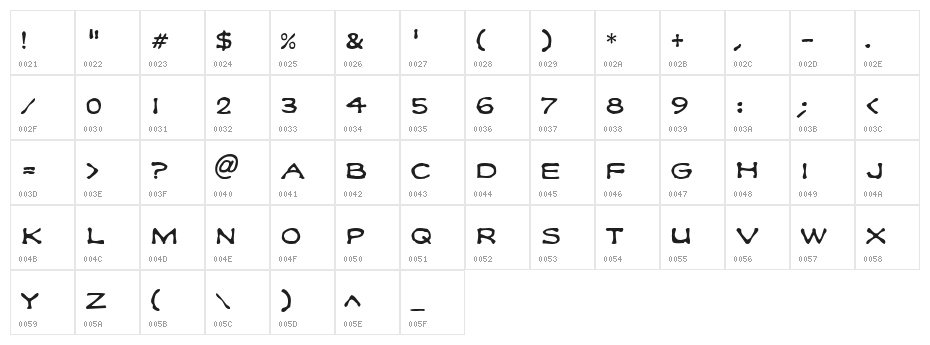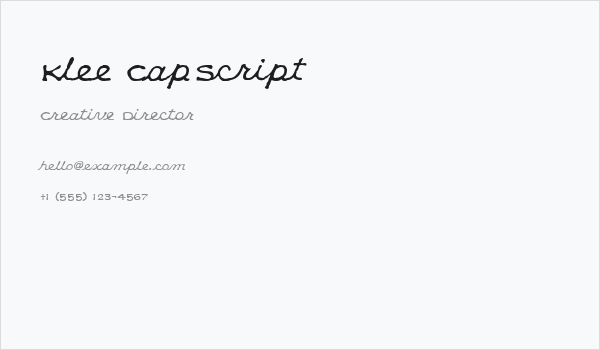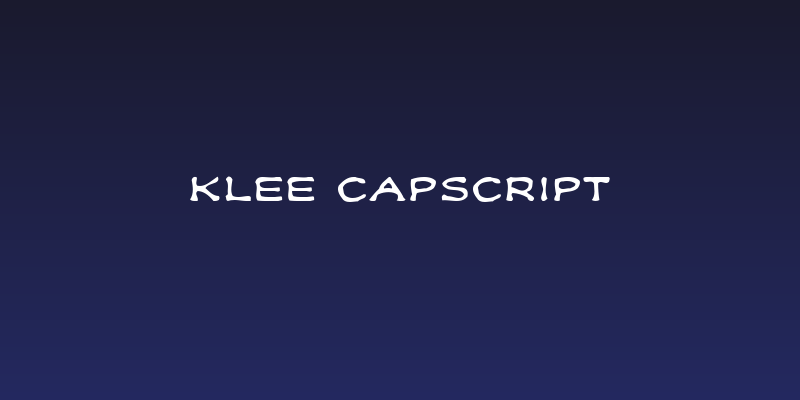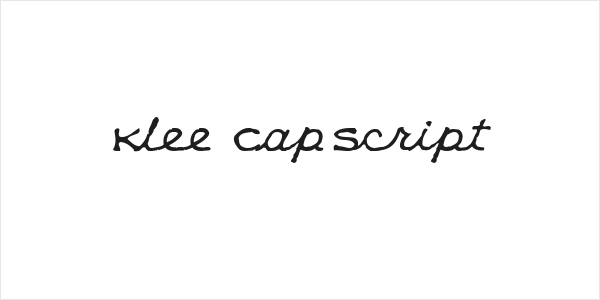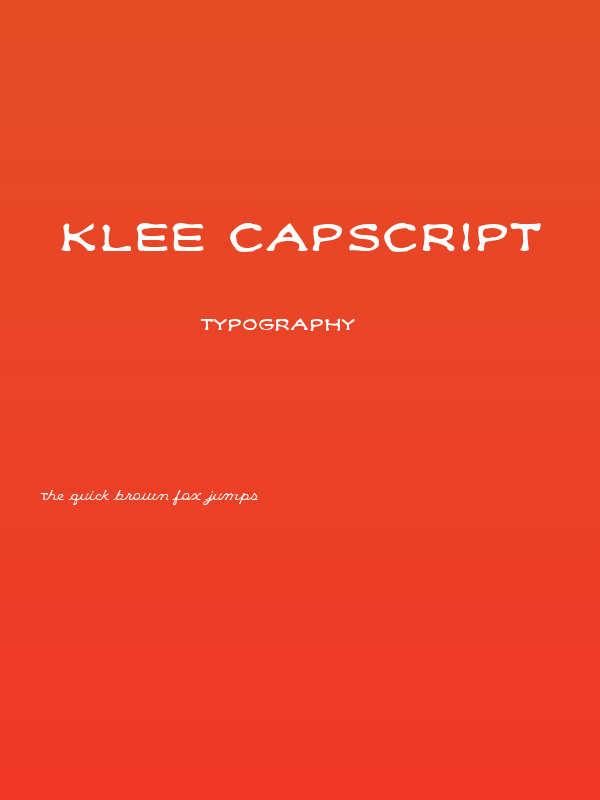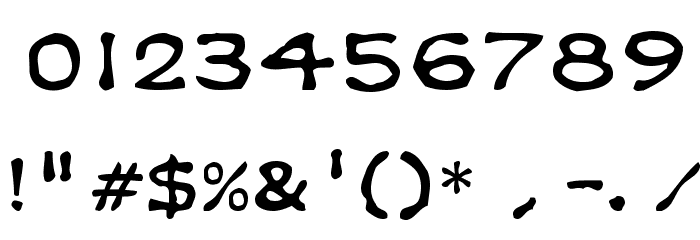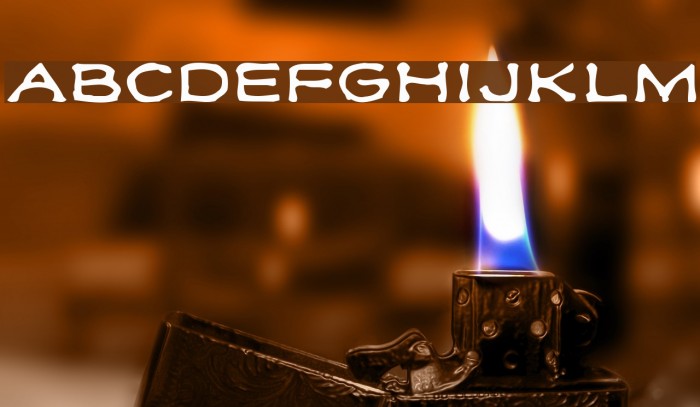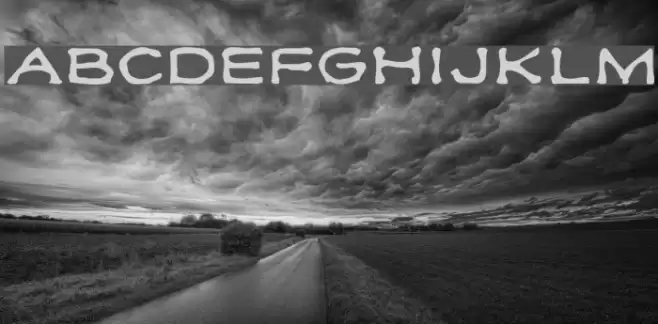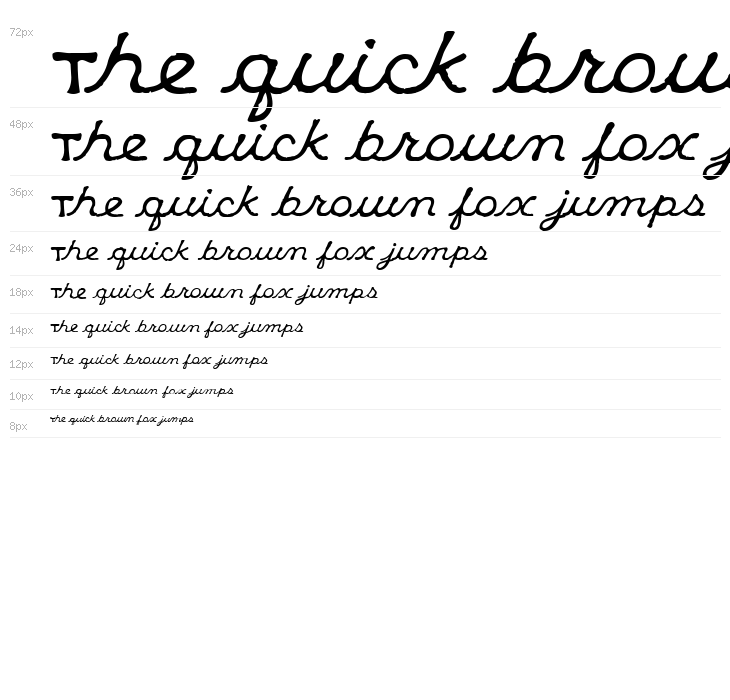
Klee CapScript Font
| 全体的なスタイル | Artistic, Playful |
| 用途 | Logos, Invitations, Creative projects |
| おすすめプロジェクト | Ideal for creative projects such as greeting cards, invitations, and artistic branding. It can also be used for personal journaling, scrapbooking, and any design that requires a touch of whimsy and individuality. |